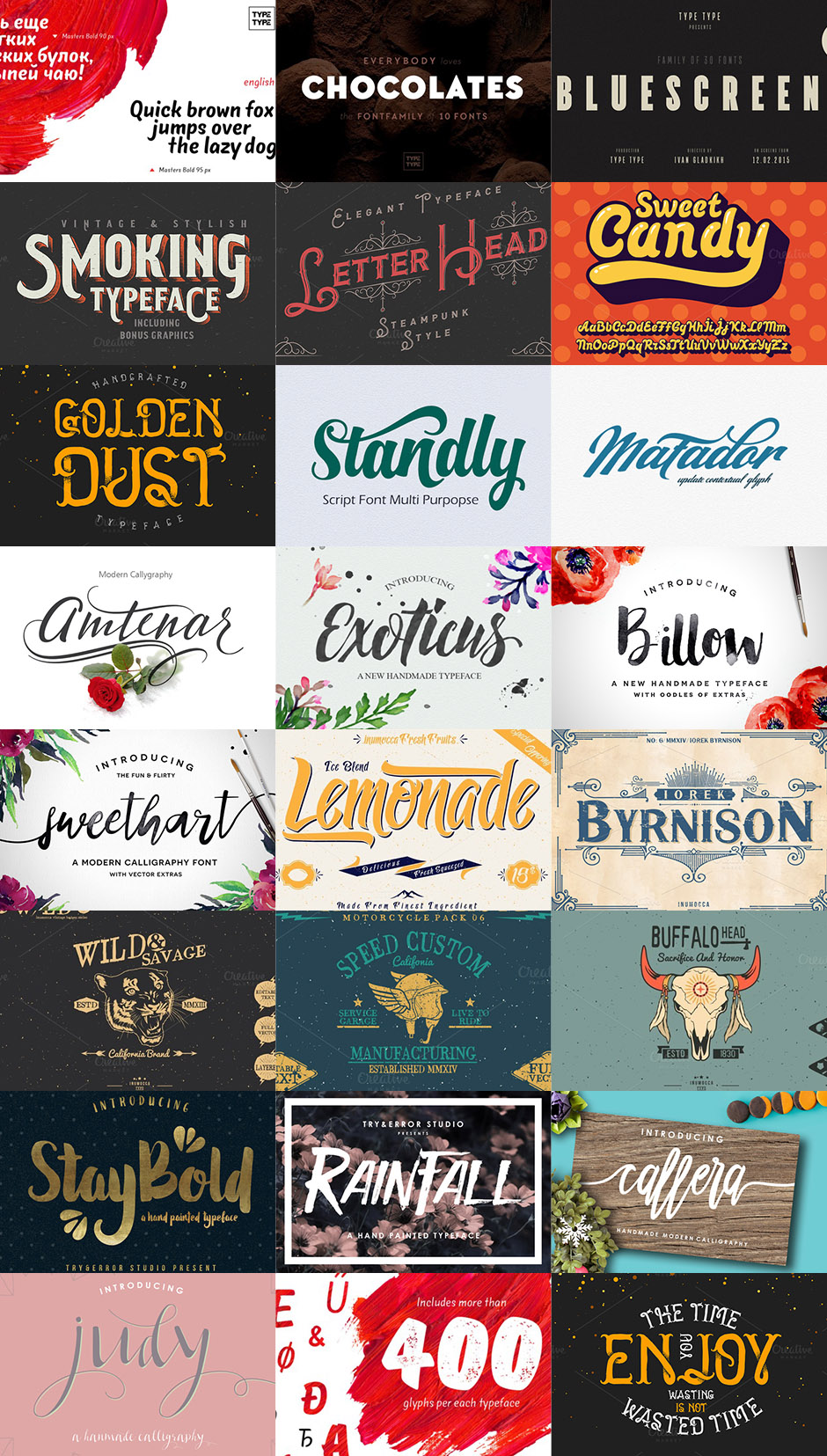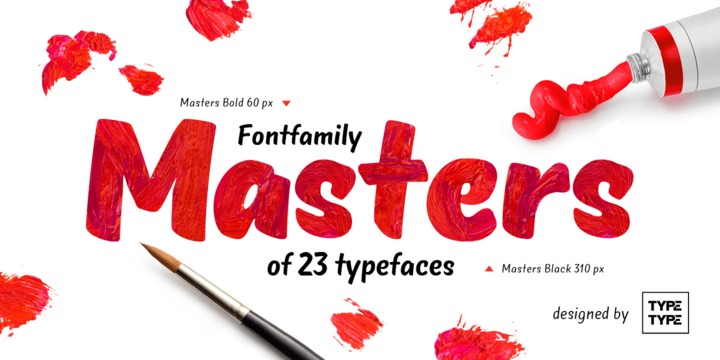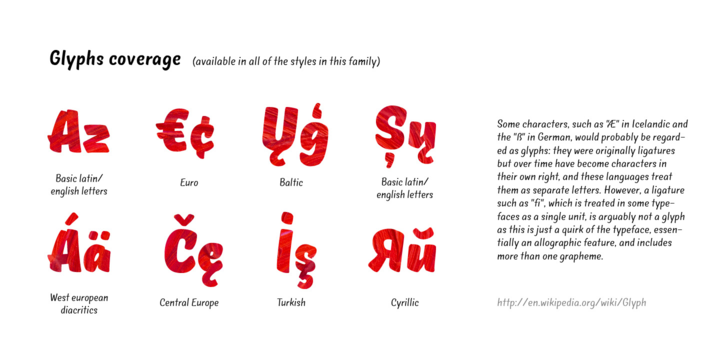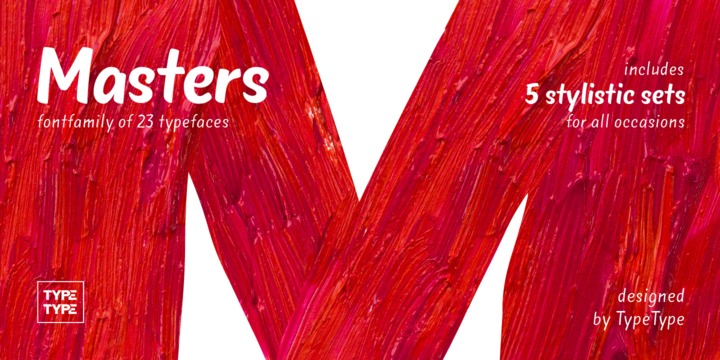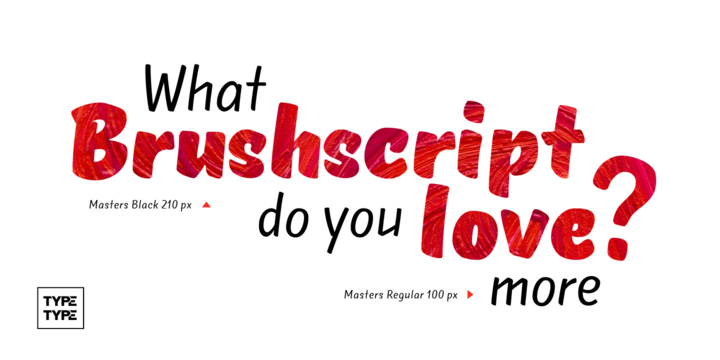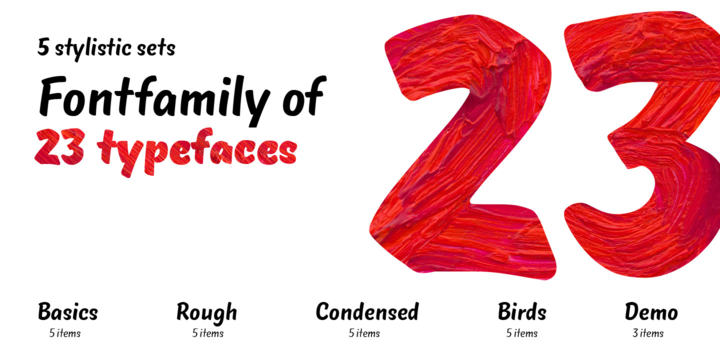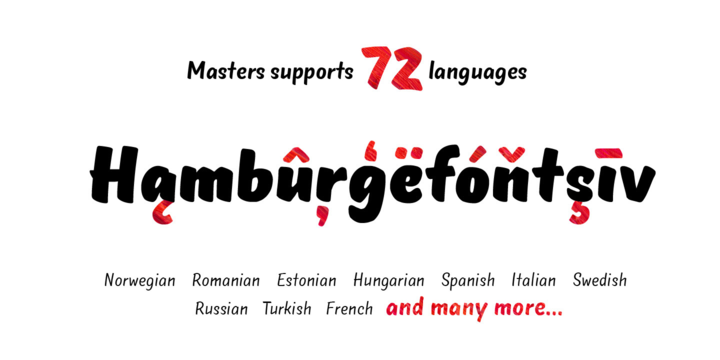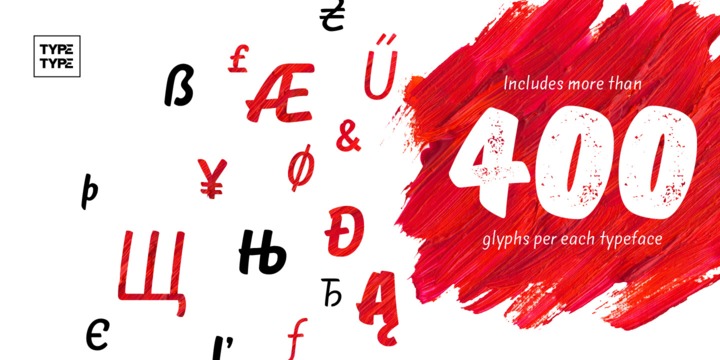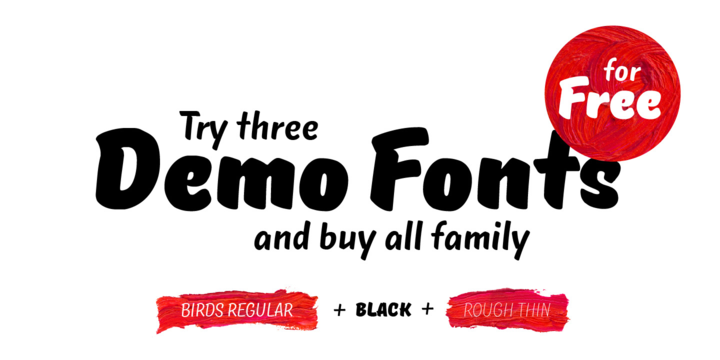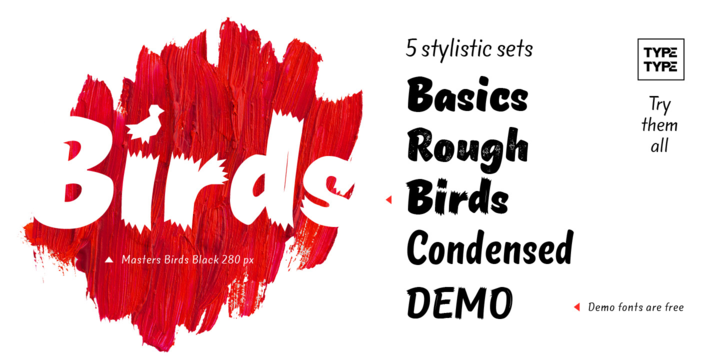
TT Masters by TypeType
Masters is a very emotional font family. These fonts will add to your design sincerity and feeling. We did 4 different styles: Masters, Masters Birds, Masters Rough and Masters Condensed. Also we added in each style classic font family formula: Thin, Light, Regular, Bold and Black.
Scope: Handmade, coffeeshop, interior design, deli, grocery, flower shop, drawings, interfaces, infographics, statistics, graphic design, logotypes, structures, TV design, packaging, design of interiors and exhibitions, presentations and events, restaurants and cafes, printed materials.
TT Chocolates by TypeType
Chocolates is a geometric grotesque, which was created for beautiful and elegant things such as packages of chocolate. We wanted to make a fontfamily as a dessert. This is a delicious accent for your design.
Chocolates fontfamily contains the five most popular weights: Thin, Light, Regular, Bold, Black and Italics.
Scope:
food packaging, luxury design, cafes and restaurants, interior design, books, corporate identities and brochures, outdoor and TV advertising, confectionery and bakery, holidays and festivals, urban spaces
Optimized for the websites, mobile applications, and printing materials.
TT Bluescreens by TypeType
Blockbusters, posters, titles and movie trailers — now we have created the perfect font family for this. Bluescreens — a high-quality font family which is designed specifically for cinephiles and directors. Condensed style contains five most popular typefaces: Thin, Light, Regular, Bold, Black and Italics.
Scope:
Posters, movies, titles, scripts, film, comedy, action, Hollywood, logos, interior design, infographics, display, headline, decorative, geometric, books, educational literature, textbooks
Smoking typeface + Illustration by Gleb Guralnyk
Hello! Introducing another one vintage western font. I’ve made a separated font files for base font and a textured volume effect, so you can easily recolor your text in few clicks.
Poster with dangerous man (third screenshot)
Letterhead typeface with ornate by Gleb Guralnyk
Hello! Here is a classic look typeface named “Letterhead”. It’s made in steampunk style with vintage vector ornate.
Pin up font and illustration by Gleb Guralnyk
Hi! This font set contains two modifications of “Pin up” font in OTF and WOFF formats. Also there are four EPS10 files with illustrated examples of this font. Including pin up girl illustration. All of them are fully editable vectors! As a bonus included several swashes (they are NOT placed in font files, only in vector EPS, so you have to attach them manually in your vector software). P.S. Note, that this font includes ONLY latin letters (no digits, or other symbols).
Golden dust typeface by Gleb Guralnyk
Hello! Introducing a “Golden dust” font. Fully handcrafted with vintage points effect. Hundreds of dots brings a lot of fun I hope you’ll enjoy it!
Standly by Groens
Standly is a font bold, so, brush script that is beautiful and unique, it is a model of modern calligraphy typefaces, in combination with a calligraphy writing style. The Features of this fonts is;
Contextual Alternates
Standart ligatures
Discretionary ligatures
Stylistic Alternates
Stylistic sets
Can be used for various purposes.such as headings, logos, wedding invitation, t-shirt, letterhead, signage, lable, news, posters, badges etc. To enable the OpenType Stylistic alternates, you need a program that supports OpenType features such as Adobe Illustrator CS, Adobe Indesign & CorelDraw X6-X7.
Standly by Groens
Matador Update is a font bold, so, brush script that is beautiful and unique, it is a model of modern calligraphy typefaces, in combination with a calligraphy writing style.
The Features of this fonts is;
Contextual Alternates
Standart ligatures
Stylistic Alternates
Stylistic sets